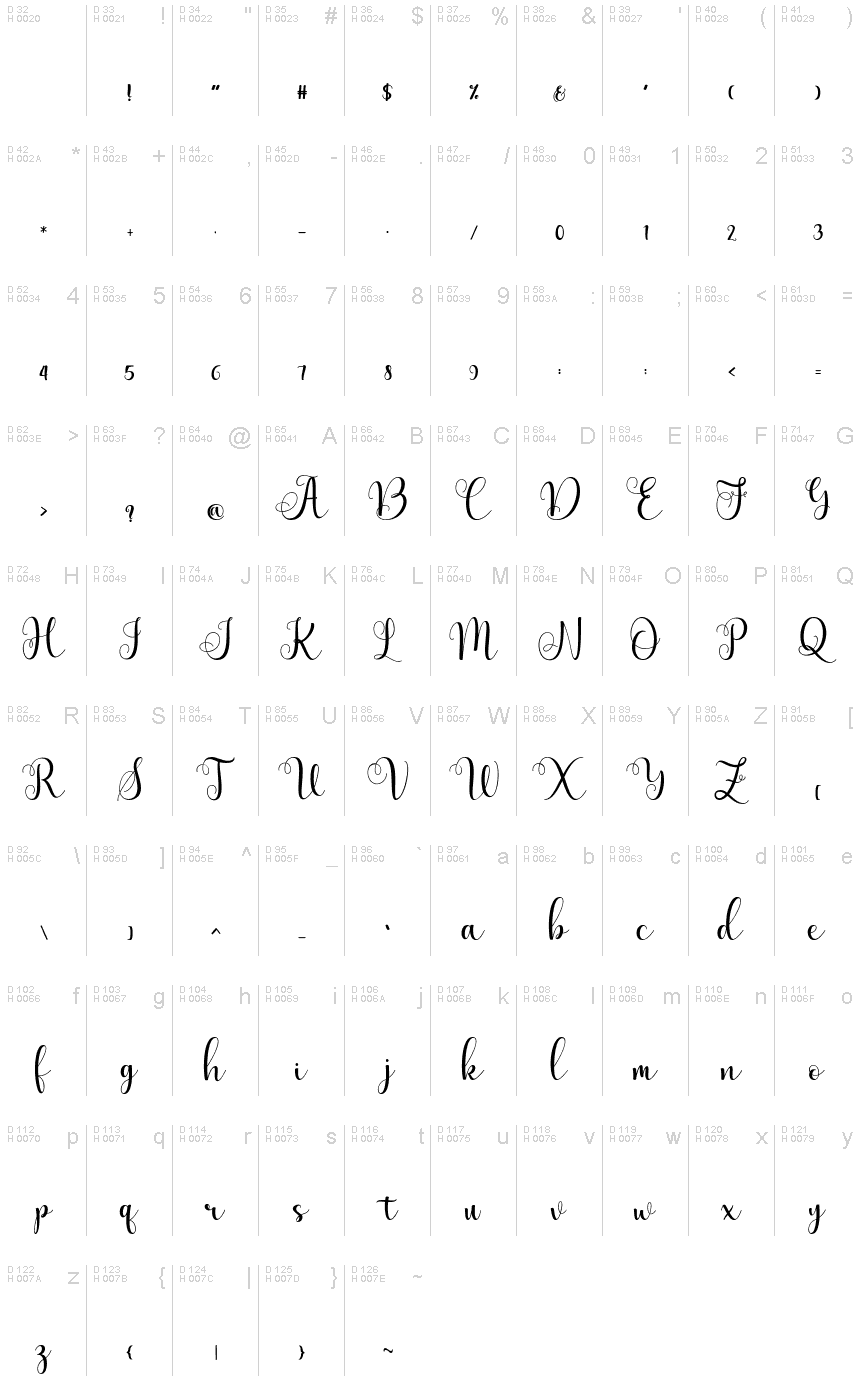
HellindaScript
Hellinda Script, designed by Cut Story, is a captivating calligraphy font that effortlessly combines elegance and playfulness. With its semi-light weight, this font delicately dances across the page, exuding sophistication and charm. Perfect for wedding invitations, greeting cards, and branding projects seeking a touch of romance, Hellinda Script adds a touch of whimsy to any design. Whether you're designing luxurious event invitations or creating beautiful signage for boutiques, Hellinda Script will infuse your projects with an air of grace and refinement. Elevate your designs with this enchanting calligraphy font that truly stands out from the crowd.